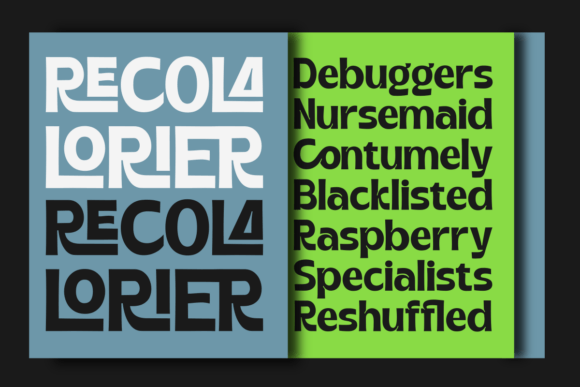
Black Rolmer Font: A Captivating Display Sans-Serif Font for Making a Statement
In the world of typography, fonts play a crucial role in conveying messages, expressing emotions, and creating a lasting impression. Among the numerous fonts available, Black Rolmer stands out as a captivating display sans-serif font designed to make a bold statement. With its clean lines, bold character, and extensive selection of ligatures, Black Rolmer is perfect for creative projects that demand a unique blend of style and functionality.
What Makes Black Rolmer a Unique Font?
Black Rolmer is a display sans-serif font that boasts a bold and clean design, making it ideal for headlines, titles, and other display purposes. Its bold character and sleek lines ensure that your text stands out, grabbing the attention of your audience. What sets Black Rolmer apart from other fonts is its extensive selection of ligatures, which offer a unique blend of creativity and functionality.
The Power of Ligatures in Black Rolmer
Ligatures are special characters that combine two or more letters to create a unique glyph. In the case of Black Rolmer, the font offers an extensive selection of ligatures that add a special flair to your projects. These ligatures ensure that each piece stands out with its distinct style and charm, making your text more engaging and visually appealing.
The ligatures in Black Rolmer are designed to provide a creative and functional way to enhance your typography. With a wide range of ligatures to choose from, you can experiment with different combinations to create a unique look that suits your project’s tone and style. Whether you’re working on a branding project, a website, or a print design, Black Rolmer’s ligatures offer a versatile solution for adding a touch of personality to your text.
Key Features of Black Rolmer Font
1. Bold Character
Black Rolmer’s bold character makes it perfect for display purposes, ensuring that your text stands out and grabs attention.
2. Clean Lines
The font’s clean lines provide a sleek and modern look, making it suitable for a wide range of creative projects.
3. Extensive Selection of Ligatures
Black Rolmer offers a wide range of ligatures, allowing you to add a unique touch to your typography and create a distinct style.
4. Versatility
The font’s versatility makes it suitable for various creative projects, including branding, websites, print designs, and more.
How to Use Black Rolmer Font Effectively
To make the most of Black Rolmer’s unique features, here are some tips for using the font effectively:
1. Use it for Headlines and Titles
Black Rolmer’s bold character and clean lines make it perfect for headlines and titles, ensuring that your text stands out and grabs attention.
2. Experiment with Ligatures
Take advantage of Black Rolmer’s extensive selection of ligatures to add a unique touch to your typography and create a distinct style.
3. Pair it with Other Fonts
Black Rolmer can be paired with other fonts to create a harmonious and visually appealing typography. Experiment with different font combinations to find the perfect match.
Black Rolmer is a captivating display sans-serif font that offers a unique blend of style, functionality, and creativity. With its bold character, clean lines, and extensive selection of ligatures, this font is perfect for making a statement and adding a touch of personality to your projects. Whether you’re a designer, a marketer, or a creative professional, Black Rolmer is an excellent choice for your typography needs.
So, if you’re looking for a font that can help you make a lasting impression, look no further than Black Rolmer. With its versatility, creativity, and functionality, this font is sure to become a staple in your typography arsenal.